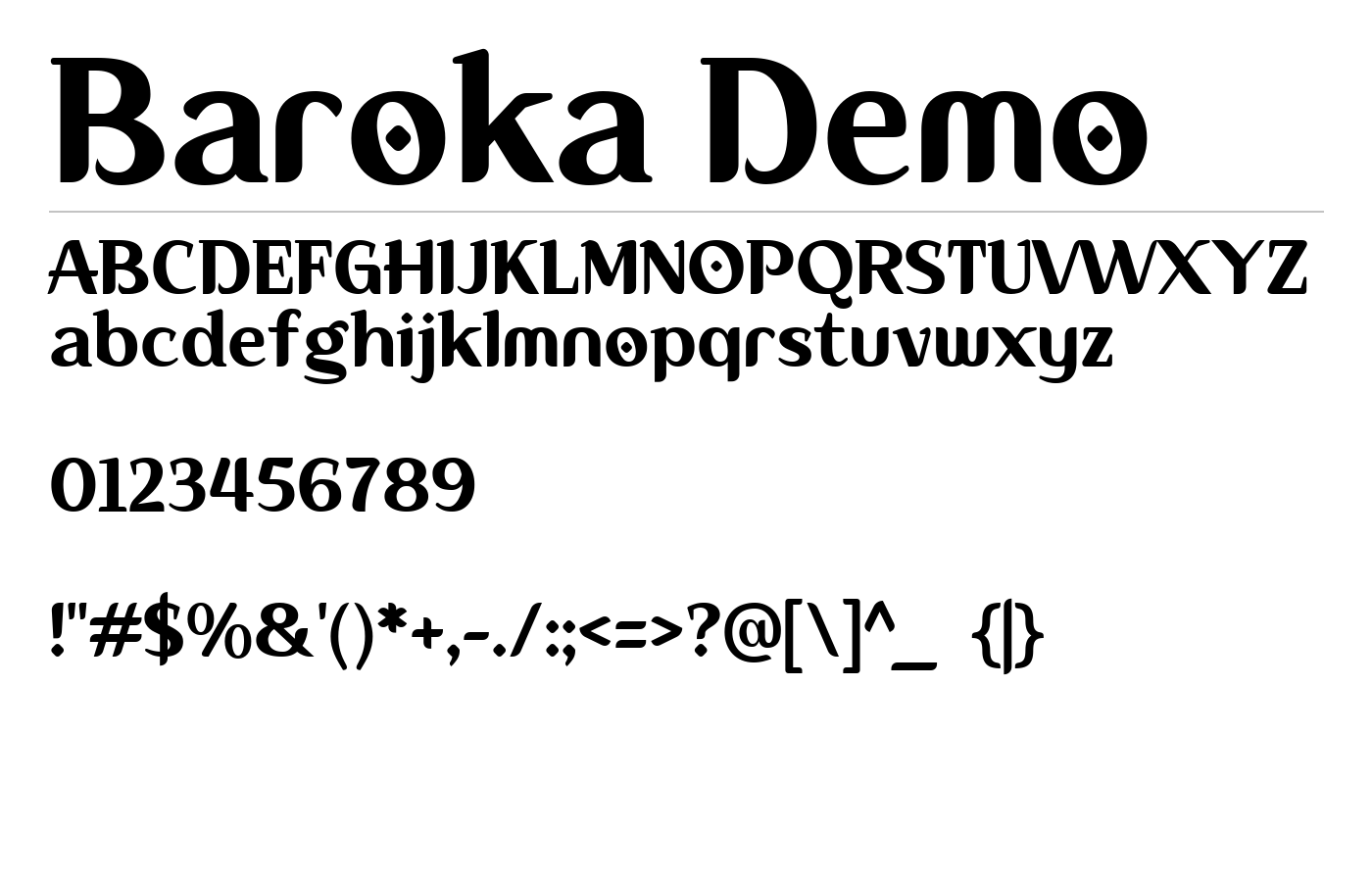
Baroka is a serif typeface with a unique blend of traditional and contemporary elements, featuring medium weight and moderate contrast that gives it a warm yet distinctive personality. Its sharp, bracketed serifs and quirky details like diamond-shaped counters and unusual terminals make it ideal for eye-catching headlines, editorial designs, and creative branding that seek to stand out with a touch of elegance and character. This font works especially well in settings where a subtle mix of sophistication and playfulness is desired, such as magazines, posters, and fashion packaging.
Baroka Font
About Baroka Font